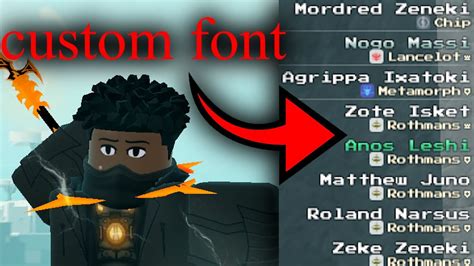
Get Minecraft Font In Roblox: A Simple Guide
Get Minecraft Font in Roblox: A Simple Guide
Hey everyone! Ever wondered how to spice up your Roblox game with that iconic Minecraft font? Well, you’re in the right place! This guide is your ultimate companion on how to get the Minecraft font for Roblox. We’ll dive into the nitty-gritty, making sure you can implement this cool feature without pulling your hair out. So, whether you’re a seasoned Roblox developer or just starting out, this guide is designed to be your friendly assistant.
We’ll cover everything from the basic concepts of fonts in Roblox to the specific steps you need to take to get that blocky, familiar look. We’ll also explore different methods, ensuring you have a choice that suits your skill level and preferences. No more generic fonts; it’s time to bring that Minecraft charm into your Roblox creations! The goal here is simple: to make your Roblox experience not just good, but awesome. This journey will be filled with easy-to-follow instructions, tips, and tricks. By the end, you’ll be able to customize your game with the perfect Minecraft font and give your players an unforgettable experience. Let’s get started, guys!
Understanding Fonts in Roblox
Before we jump into the how-to of getting the Minecraft font for Roblox , let’s get our heads around fonts in general. In Roblox, fonts are a fundamental element of the user interface. They help convey information, set the tone of your game, and make it visually appealing. Roblox offers a wide variety of built-in fonts, each with its unique style and personality. However, sometimes, you want something a bit more specific, like the Minecraft font.
Think of fonts as the clothes your text wears. They can be bold, italic, or even have a different color; fonts set the mood. In the world of Roblox, you can change the font of almost anything that displays text: buttons, labels, chat messages, and so on. Understanding this basic concept is crucial because it sets the stage for implementing custom fonts. The process essentially involves two main steps: getting the font into your Roblox game and then applying it to the text elements. It may sound complex, but trust me; it’s quite simple when broken down step-by-step. Let’s make it clear: Roblox doesn’t natively support importing external fonts the way some other platforms do. But, hey, there are always workarounds! We’re going to discuss the most effective methods to achieve the Minecraft font effect in your Roblox game. Get ready to enhance the visual appeal of your game, attracting players and making them want to stay longer.
The Importance of Fonts
So, why are fonts so important in Roblox? Well, they’re more than just fancy lettering. Fonts play a crucial role in creating a compelling user experience. First, fonts help with readability. Using a font that’s easy to read ensures your players can quickly understand what’s on the screen. Clarity is King , especially in fast-paced games! Second, fonts contribute to the overall aesthetic of your game. They set the tone and mood, helping you to create a specific atmosphere. A playful font for a kids’ game? Definitely. A bold, serious font for a horror game? You bet! Finally, fonts can be used to reinforce your game’s branding. By choosing a recognizable font, you can make your game stand out and create a stronger identity for your game. That Minecraft font instantly communicates a style, a vibe, and a sense of familiarity. So, getting the Minecraft font for Roblox isn’t just a cosmetic change; it’s a strategic move to boost your game’s appeal and enhance the overall player experience. Think of it as another way to level up your game development skills!
Step-by-Step Guide for Image Text Method
Let’s break down the image text method into manageable steps. First, you need to gather the necessary resources . This means finding or creating images of each letter, number, and symbol in the Minecraft font. You can search online for pre-made sets or use software like Photoshop or GIMP to create your own. When you find the right images, upload them to Roblox. Go to the “Create” tab on the Roblox website, click on “Decals,” and upload each image. Make sure to give each decal a descriptive name so you can easily identify them later. Next, in your Roblox Studio project, create an ImageLabel for each character you want to display. These will be the building blocks of your text. Set the “Image” property of each ImageLabel to the decal ID of the corresponding character image you uploaded. After that, position the ImageLabels to form your text. Manually arrange each label to spell out your desired words. Adjust the size, position, and spacing of each label to get the text just right. You may need to experiment with the “Size” property of the labels to make the text the perfect size. Finally, script your text display if needed. If you want dynamic text (text that changes based on game events), you’ll need to write a script. This script will handle the creation and positioning of the ImageLabels. While this may sound complicated, you can easily find pre-made scripts online or tailor them to suit your needs. Remember, practice makes perfect. The more you work with this method, the better you’ll become at it. This method lets you craft your unique Minecraft-themed text with ease, making your game stand out. Go out there and start creating!
Method 2: Using Custom Font Assets (Advanced)
Now, let’s explore a more advanced option: using custom font assets . This method is a bit trickier, but it offers more flexibility and control over your text. Custom font assets involve creating a font and importing it into your Roblox game. However, this is more complicated because Roblox doesn’t support direct font imports. Still, we have some creative workarounds! The most common approach involves converting the Minecraft font into a sprite sheet. A sprite sheet is essentially a single image that contains all the characters of the font. Then, in Roblox, you would use a script to display each character of the text by extracting them from the sprite sheet and displaying them as images.
This method requires some technical know-how. You’ll need to understand how to create a sprite sheet, and you’ll have to write a script to handle the display of the characters. However, once you’ve set it up, you can easily use the Minecraft font throughout your game. This is the ultimate way to get the Minecraft font into your Roblox game, and it’s well worth the effort. Now, let’s get into the details. To start, you’ll need the Minecraft font file (usually a .ttf or .otf file). Then, you’ll convert it into a sprite sheet using a tool like TexturePacker. This tool takes the font file and generates an image where each character is placed in a grid. Once you have your sprite sheet, upload it as an image asset to Roblox. Now comes the scripting part. You’ll need to write a script that takes a string of text, breaks it down into individual characters, and displays each character from the sprite sheet as an image. This involves calculating the position of each character on the sprite sheet and displaying it as an image. It’s a bit technical, but there are many tutorials and examples online to help you out. With this approach, you can have dynamic, stylish text in your game. It might seem daunting, but the result is well worth it, especially if you aim for a professional look. Let’s dive deeper to give you a clear image of this method.
Implementing Custom Font Assets: A Technical Overview
Okay, let’s delve into the technicalities of the custom font asset method. First, you’ll need to acquire the Minecraft font file. You can download the font from various websites, just ensure you have the proper licenses to use it. After acquiring the font file, you’ll need to convert it into a sprite sheet. This process is key because Roblox doesn’t support the direct use of font files. Use a sprite sheet generator like TexturePacker or similar tools. You’ll import the Minecraft font file and configure the tool to generate a sprite sheet. This sheet contains all the font characters arranged neatly. Then, you’ll upload your created sprite sheet to Roblox as an image asset. Remember to make note of the asset ID. This will be critical for the next steps. Now, you have to script the character display using the script. You’ll write a script in Roblox Studio to handle displaying the characters from the sprite sheet. The script will take the text as input, extract each character, calculate its position on the sprite sheet, and display the corresponding image using ImageLabels. Remember to set the Image property of the ImageLabels using the asset ID of your sprite sheet. The script also handles the positioning and scaling of these labels to form the text.
This method requires familiarity with scripting in Roblox Studio. However, once you’ve grasped the concepts, you’ll have more control. This will let you customize the font appearance, add effects, and make your game look stunning. Keep in mind that fine-tuning the script might require some experimentation to get the perfect result. There are online resources and tutorials that can help you with scripting. Don’t worry if it seems challenging at first; with practice and patience, you’ll master it. In the end, this method offers the best way to get the true Minecraft font experience in your Roblox game. Get creative, and you’ll find it an enriching experience.
Choosing the Right Method
So, which method is right for you? Choosing the right method depends on your skill level, the time you have, and the level of customization you need. If you’re a beginner or want a quick and simple solution, the image-based text method is the way to go. It’s easy to implement and doesn’t require any coding knowledge. The image method is ideal for smaller text elements and basic game interfaces. But remember, it can become time-consuming for large amounts of text. If you want more flexibility, greater control over the appearance of your text, and have some experience with scripting, the custom font asset method is for you. This method allows you to display text in a dynamic way. It’s perfect for those who want a professional look and can handle the technicalities.
No matter which method you choose, remember to test your text thoroughly in your game. Make sure the font is readable and enhances the overall player experience. Think about the style and mood of your game. Does the Minecraft font fit? Does it match the game’s overall design? Remember, the best approach is to start with the simplest method and move to the more complex one if necessary. You can always refine your approach as you gain experience and get more comfortable with Roblox development. The goal is to create a fun, engaging, and visually appealing experience for your players. So, pick the method that works best for you and start adding that Minecraft charm to your Roblox game!
Troubleshooting Common Issues
During the process of getting the Minecraft font for Roblox , you might face a few common challenges. First, you might encounter issues with the image quality. If the font images appear blurry, ensure they are high-resolution and properly scaled. Resizing images in Roblox Studio can also affect the quality, so try to use images that match the desired size in your game. Check your image settings to ensure that the images don’t get compressed. Another common issue is alignment problems. When using ImageLabels for the image text method, the characters might not align perfectly. Fine-tune the positioning and spacing of each label. Sometimes, adjusting the